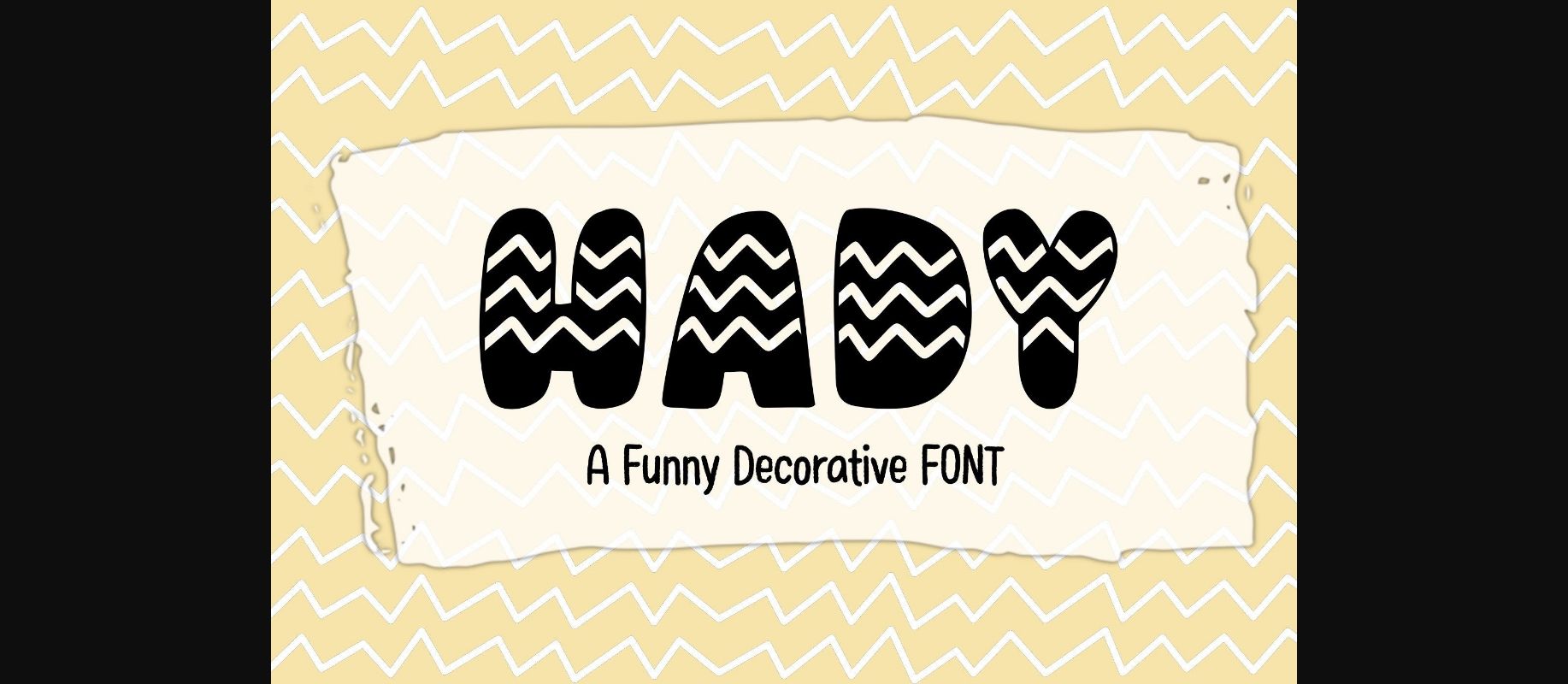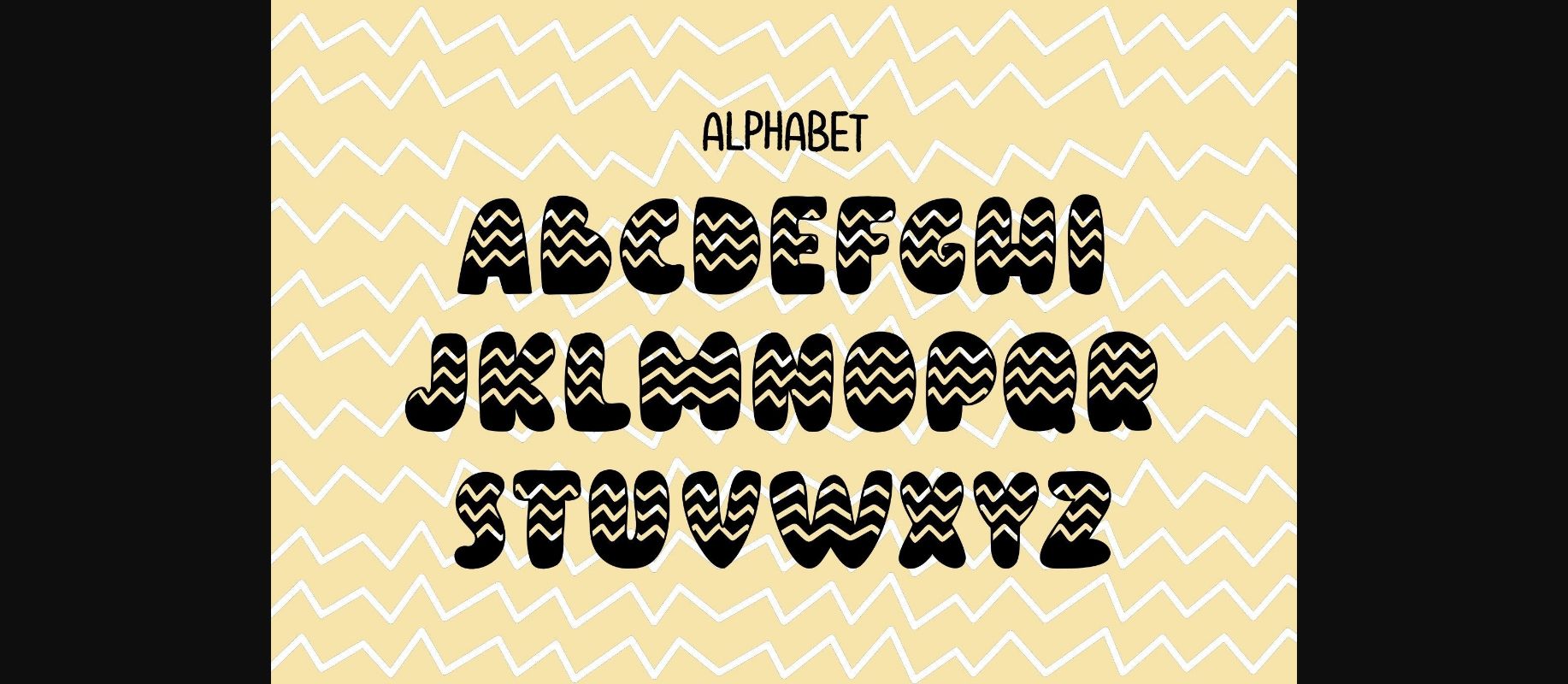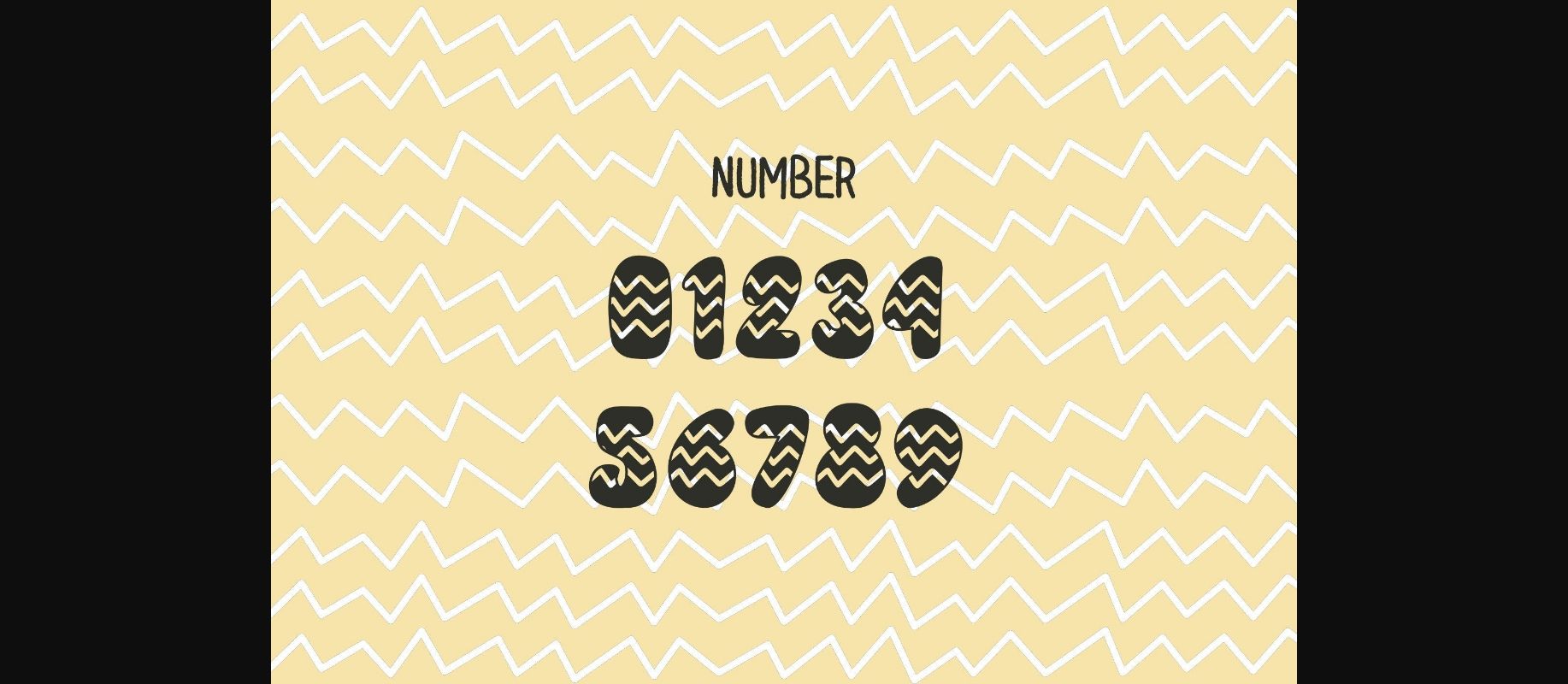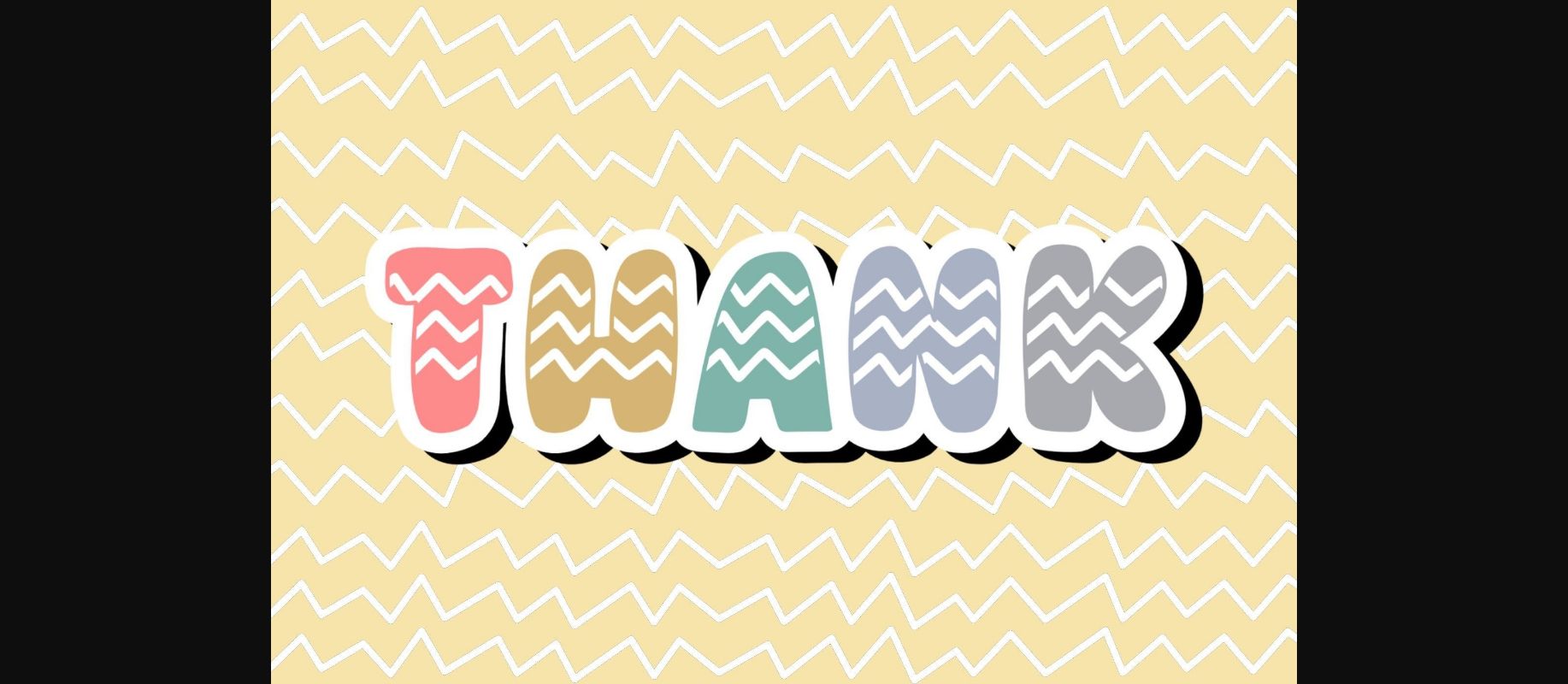
Hady Font
About Hady Font
Hady is a Decorative font. This font is the perfect fit for all of your logos, branding, social media, crafty DIY projects, and much more!